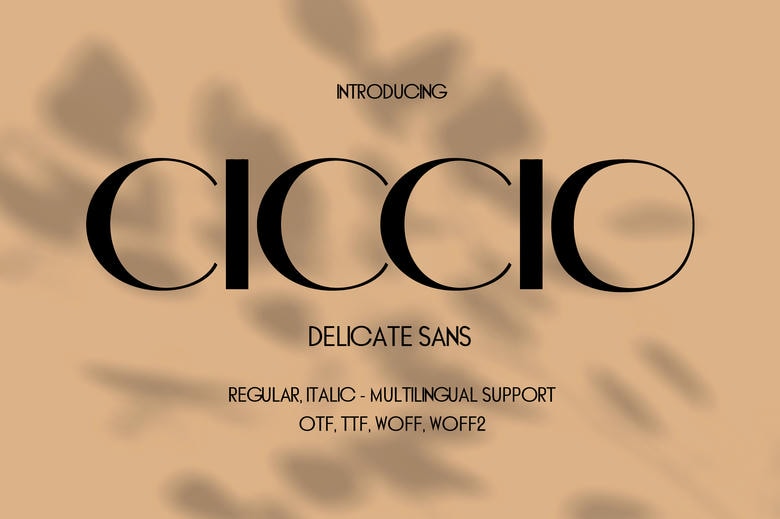
Ciccio Font
Ciccio is a beautiful modern sans serif with a sense of elegance, chicness and minimalism. This font has more than 602 well designed glyphs, which are ideal in any design undertaking that needs a certain degree of sophistication. The smooth and clean lines of Ciccio give timeless appearance, which is modern and sophisticated. It can be applicable in a variety of design applications, including branding and marketing materials, editorial layouts, and web designs, as well, due to the versatility with which it can be applied.
Ciccio provides extensive multilingual support and this allows it to be used effectively to communicate in a considerable variety of languages. The languages used in its international assortment include Spanish, French, German, Italian, and others. Designed with a great attention to detail, Ciccio is a font that will give any project one uses it a touch of prestige. Ciccio will either make a statement that impresses whether it is a minimalist web page or a high-end fashion brand.
To conclude, Ciccio is a great contemporary typeface that is certainly stunning, graceful, and minimalist. It has a wide range of glyphs and it is also multilingual; it is indispensable to any designer who wants to make high-quality designs of high sophistication.
Ciccio Sans Serif Font